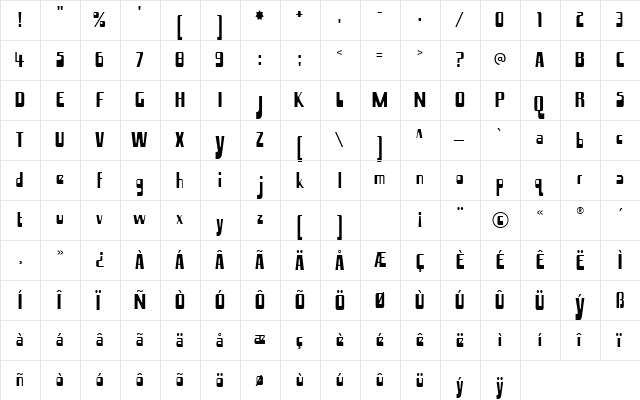
Hamma Mamma Jamma Regular
Design Context for Hamma Mamma Jamma Typeface
Hamma Mamma Jamma is a composed and adaptable typeface that performs quietly and consistently across a wide range of design contexts.